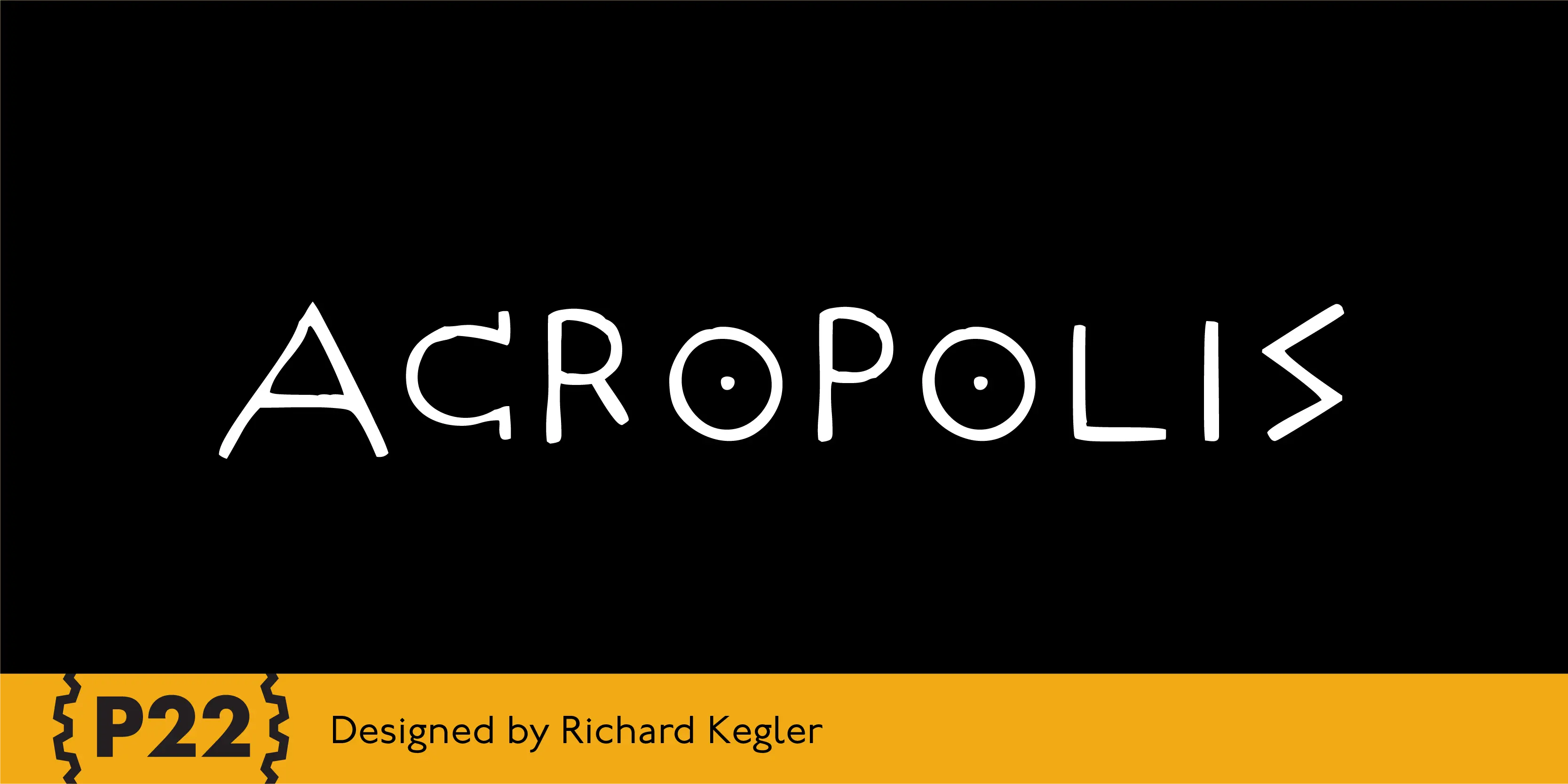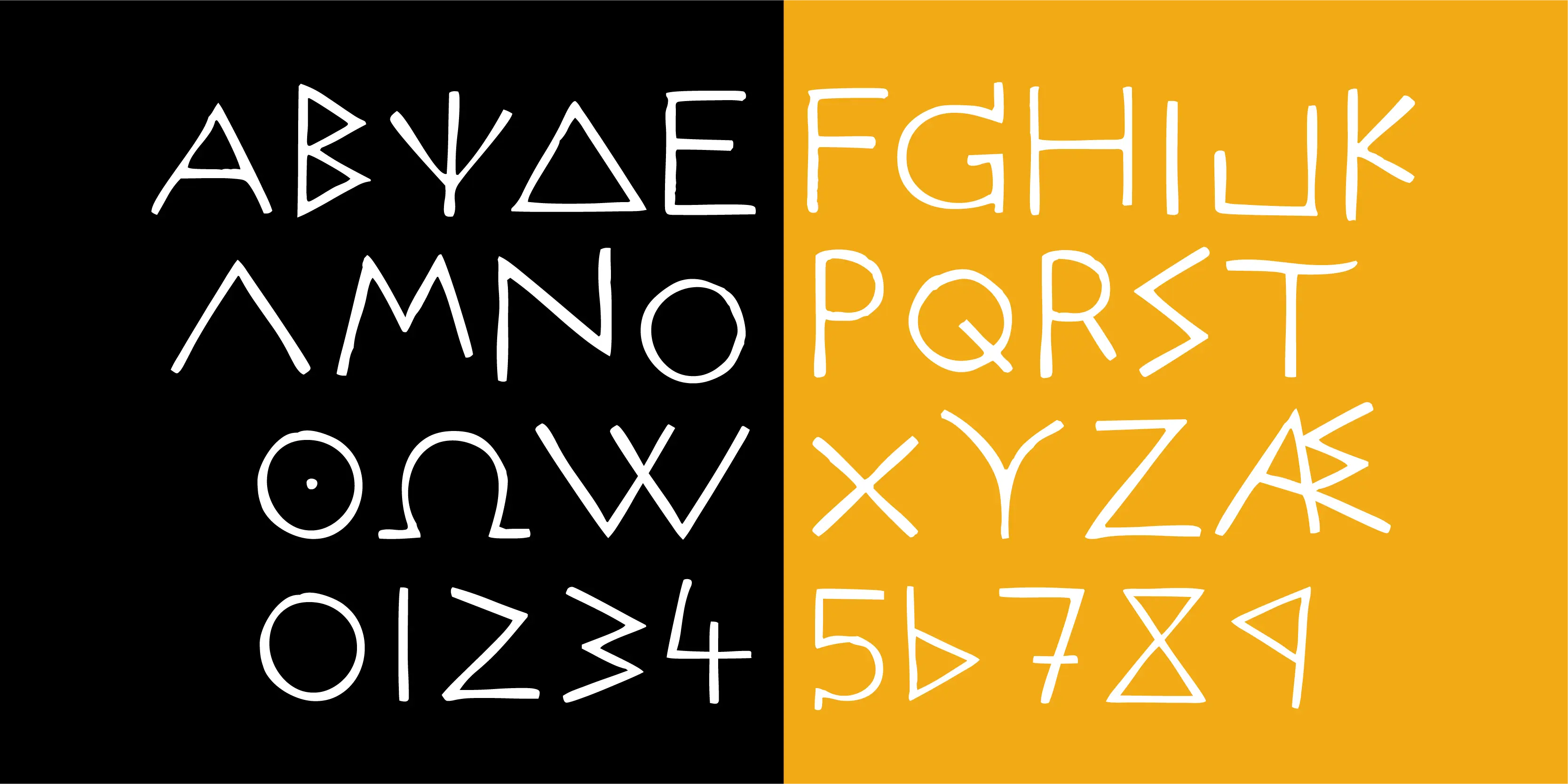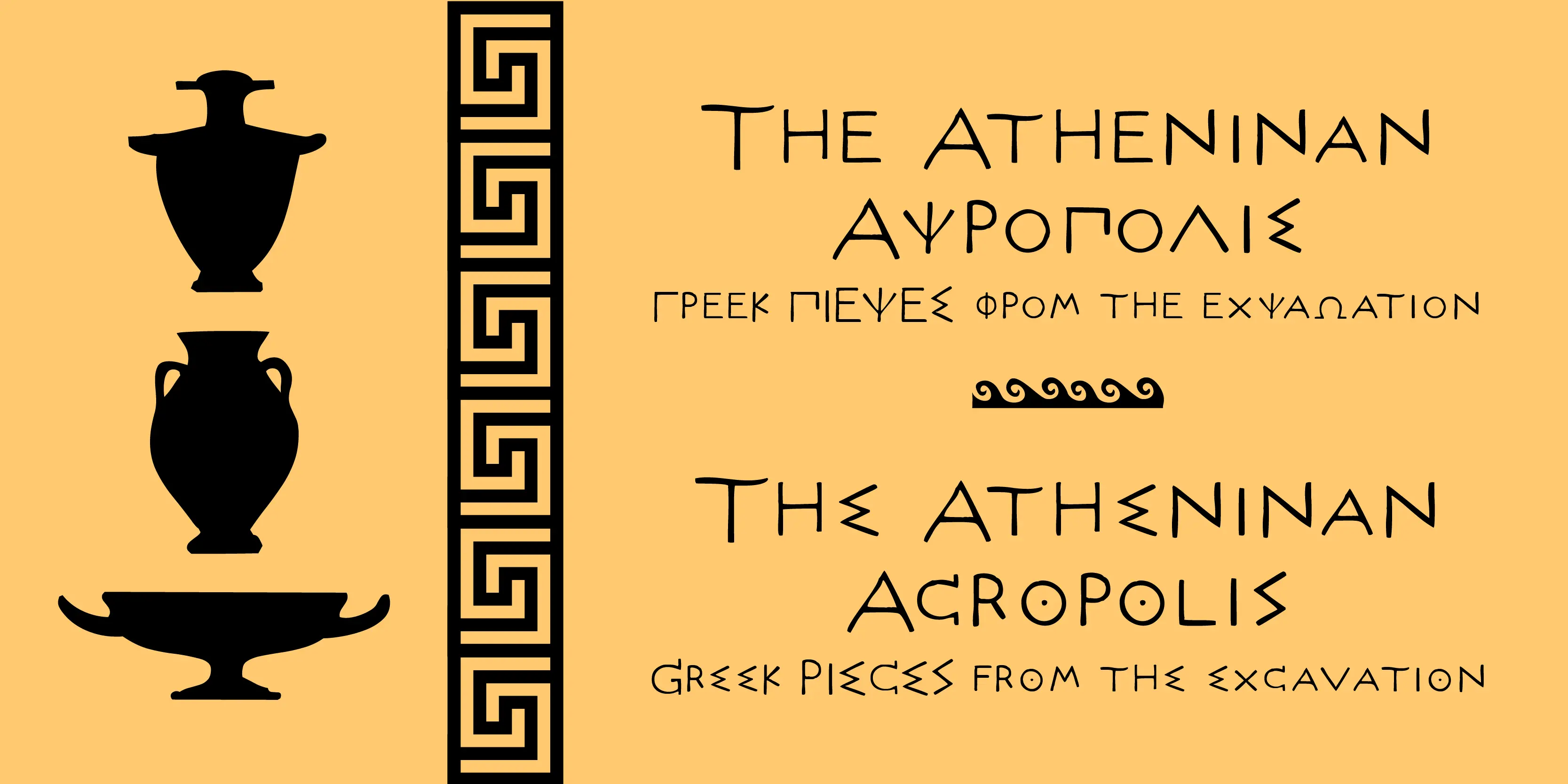
Acropolis Font Family
• Acropolis Now
• Acropolis Then
Acropolis
P22 Acropolis is P22’s tribute to the enduring contribution of Classical Greece to world culture. This set features two typefaces in the style of ancient Greek stone carvings (one modern: Now, and one of authentic ancient Greek characters: Then) and 52 graphic extras drawn from coinage and vase paintings.